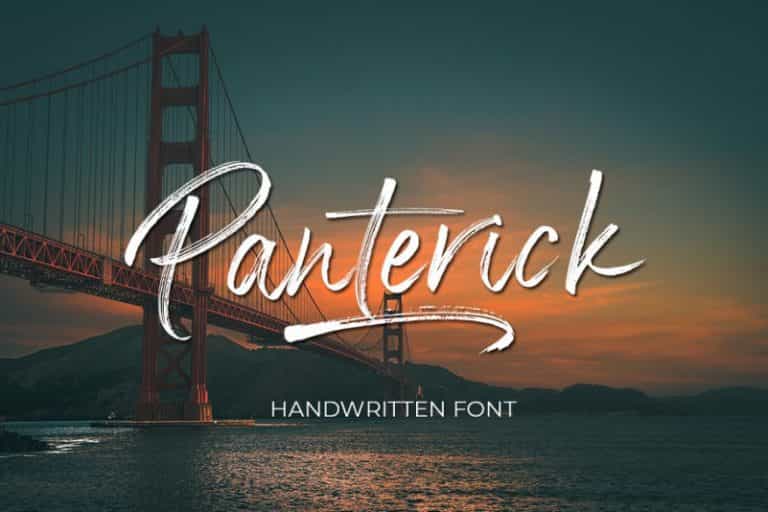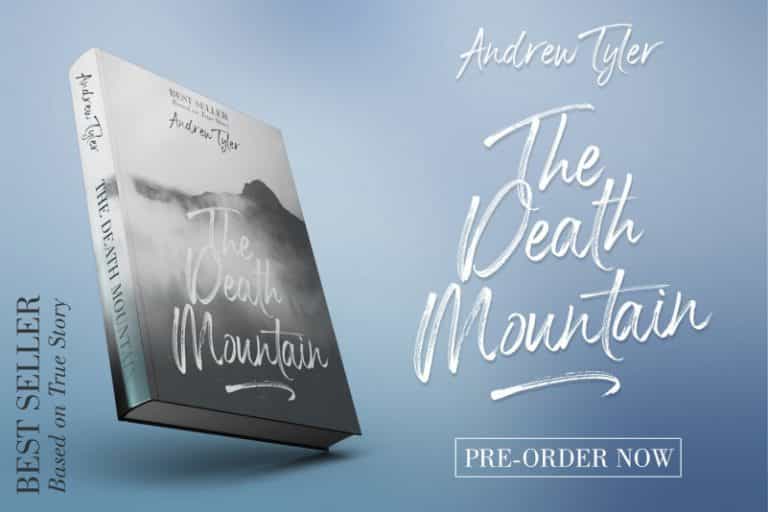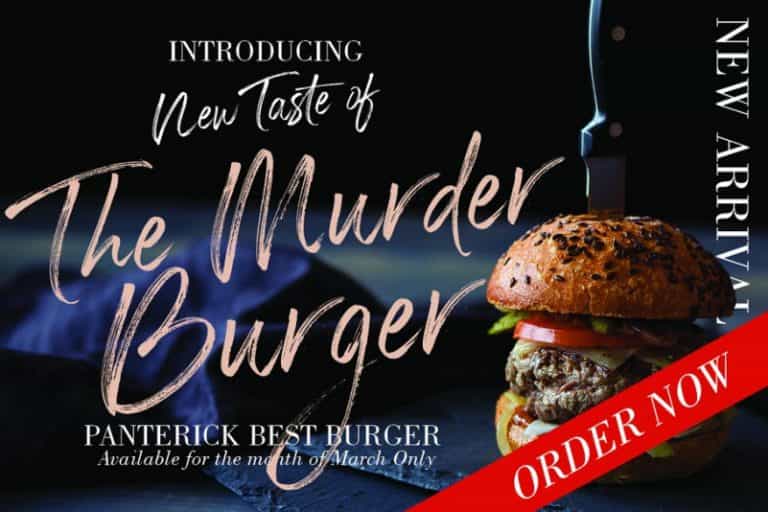
Discover Panterick Brush Font, part of the Brush collection—a versatile and unique font perfect for adding a personal touch to your projects. Download it for free and enjoy crafting designs with style, from invitations to social media posts. This font is available exclusively for personal use, giving you the freedom to create without limits. Unlock your creativity with Panterick Brush Font today!
Introducing Panterick Font. Panterick Brush Font This font is the best for design needs such as logo, t-shirt, heading, magazine, newspaper and website to create quotes, posters business cards etc.